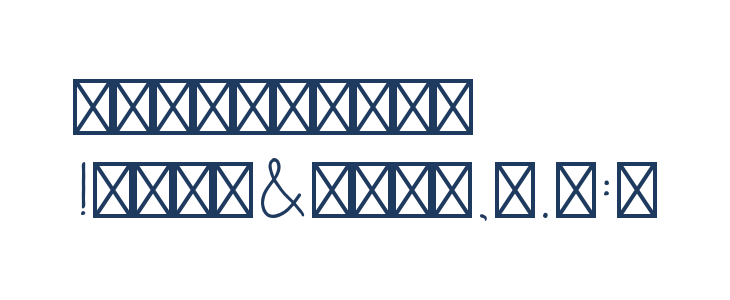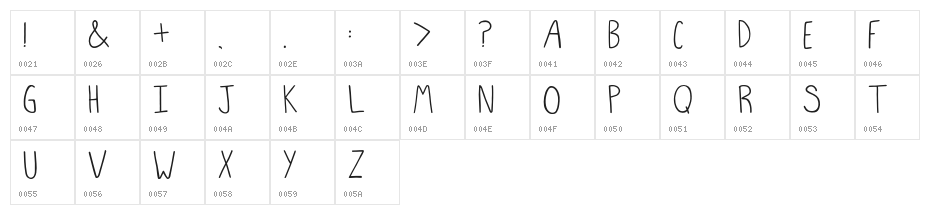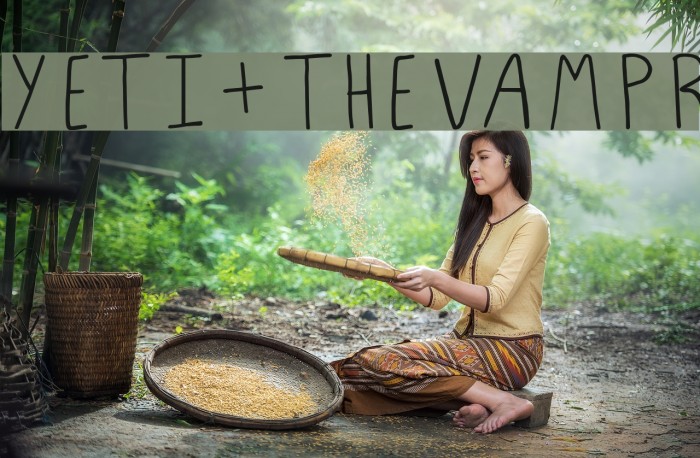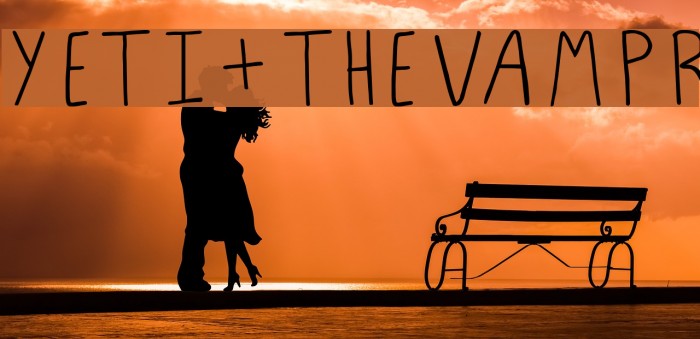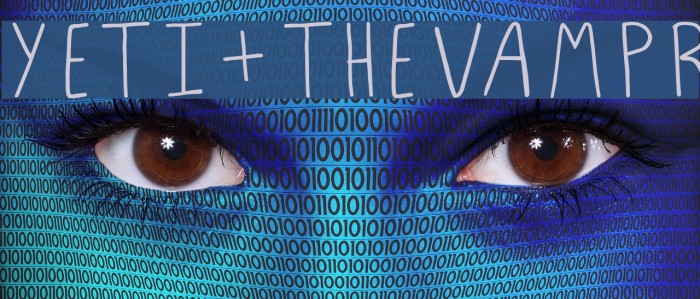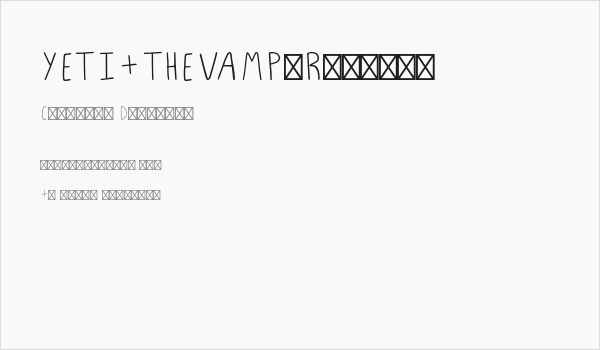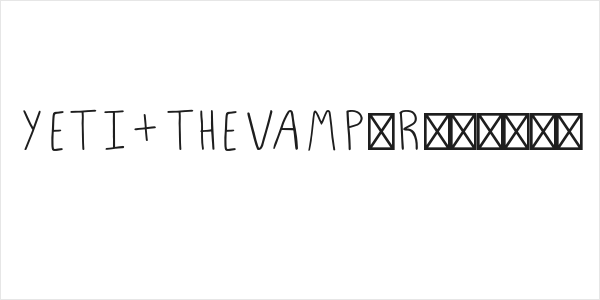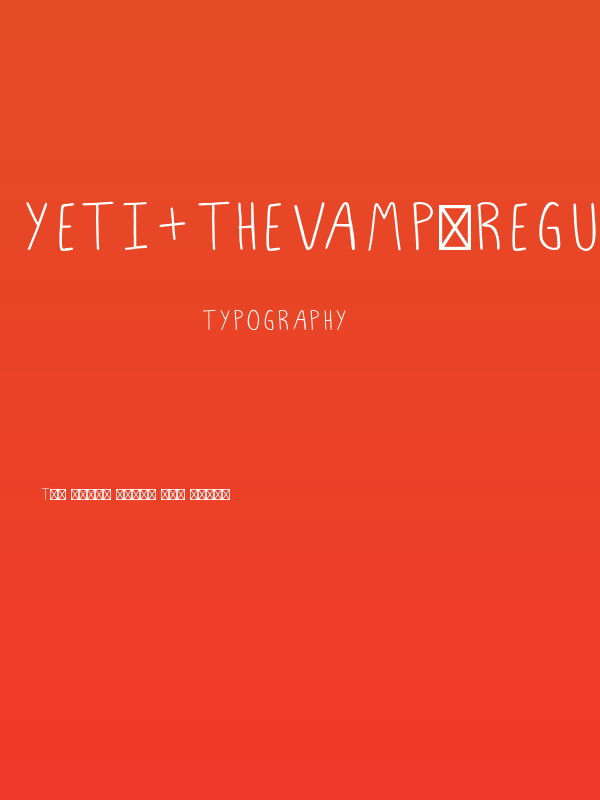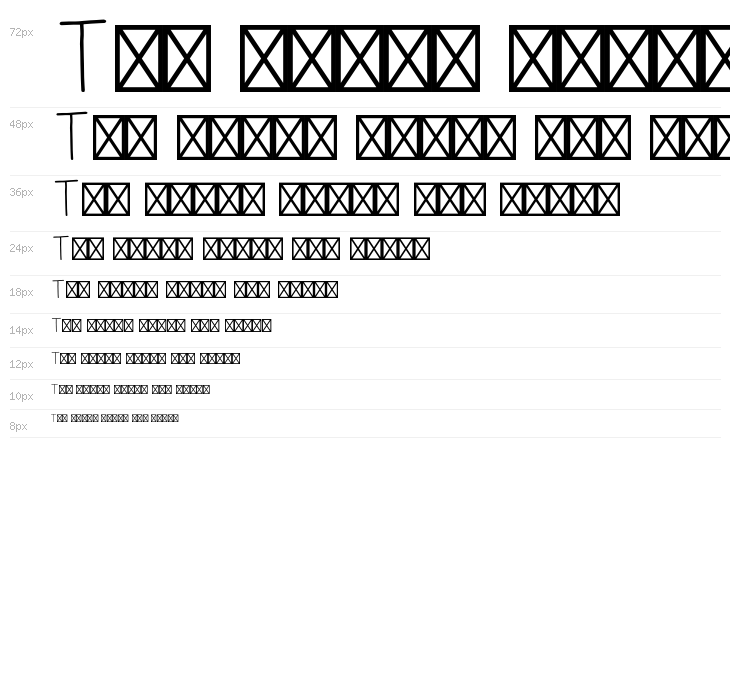
YETI+THEVAMP-Regular Font
YETI+THEVAMP-Regular Description
This font features a playful and casual handwritten style, characterized by its tall, narrow letters with a slight slant. The strokes are consistent in width, giving it a uniform appearance. The uppercase letters are distinct and easily readable, while the lowercase letters maintain a similar height, enhancing legibility. The font includes a variety of special characters, adding versatility for different uses. Its informal and friendly look makes it suitable for projects that require a personal touch or a relaxed vibe.
Fonts by Grace McConnell
| Proposed Projects | Ideal for greeting cards, children's books, casual branding, and social media graphics. |